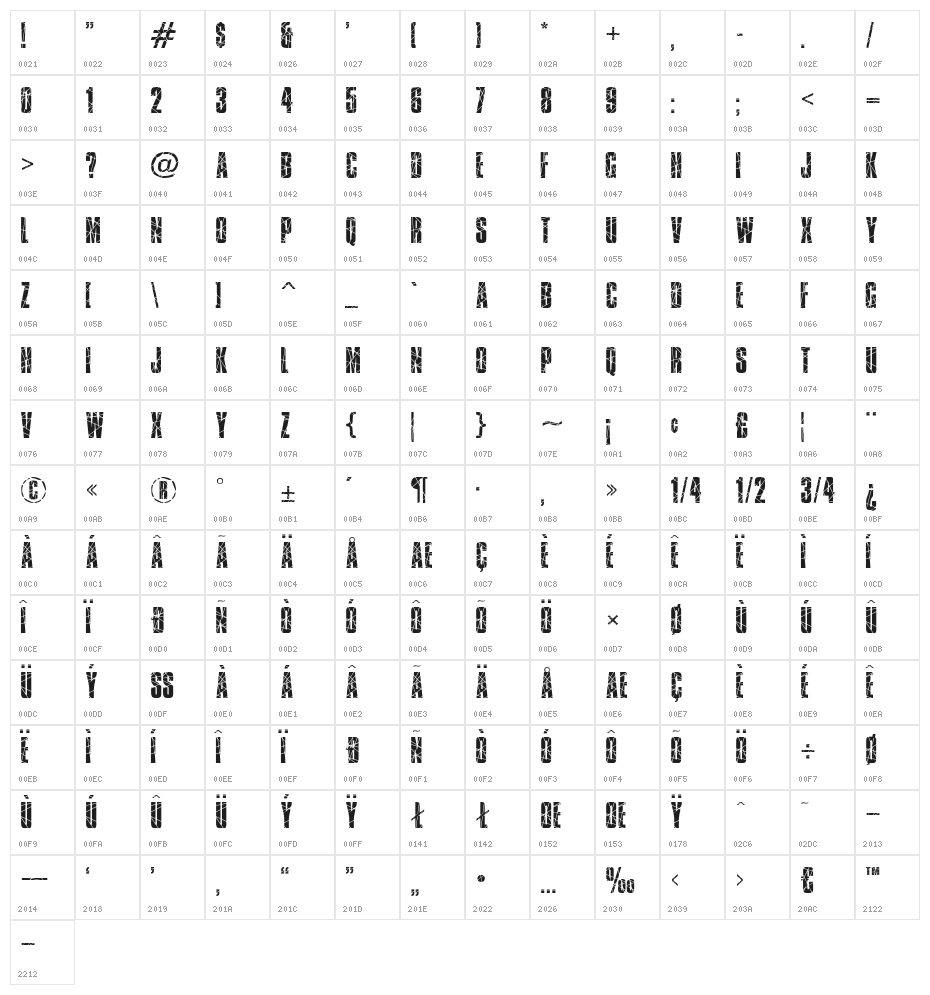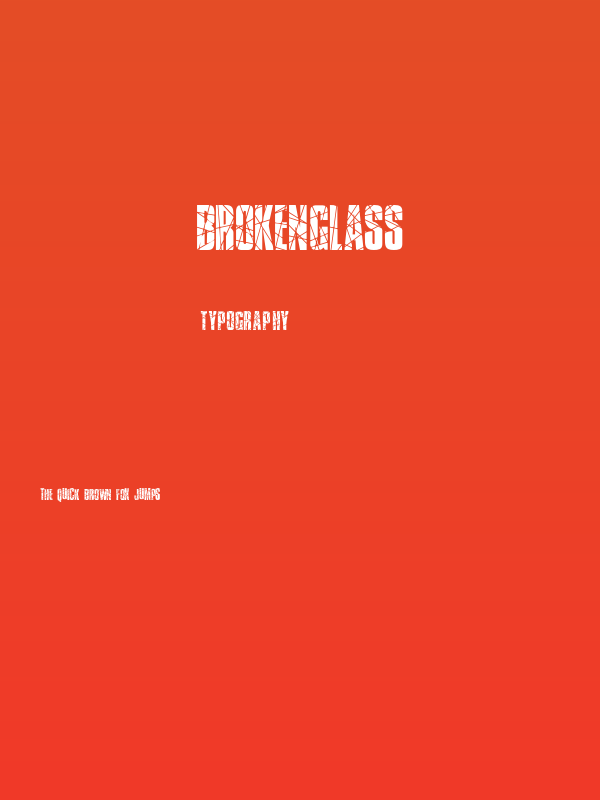
BrokenGlass Font
BrokenGlass Description
This font features a striking and unique design that mimics the appearance of shattered glass. Each character is composed of sharp, angular fragments that create a dynamic and edgy visual effect. The bold, uppercase letters are particularly eye-catching, making them ideal for attention-grabbing headlines or artistic projects. The font maintains a consistent weight throughout, with a medium contrast in stroke thickness that enhances its bold appearance. The character spacing is relatively tight, contributing to the compact and impactful look of the text. This font is perfect for projects that require a modern and unconventional style, such as posters, album covers, or branding for edgy and contemporary products.
| Use Case | Headlines, Logos, Artistic projects |
| Proposed Projects | Ideal for posters, album covers, edgy branding, and artistic projects. |